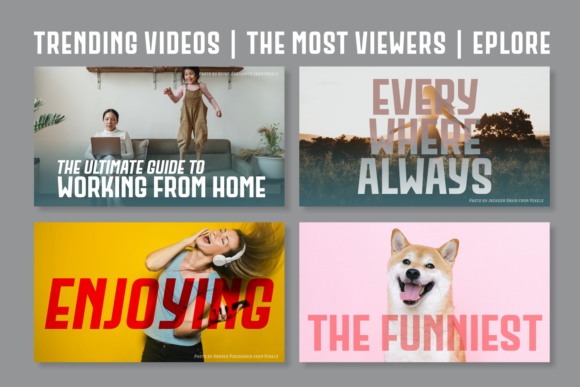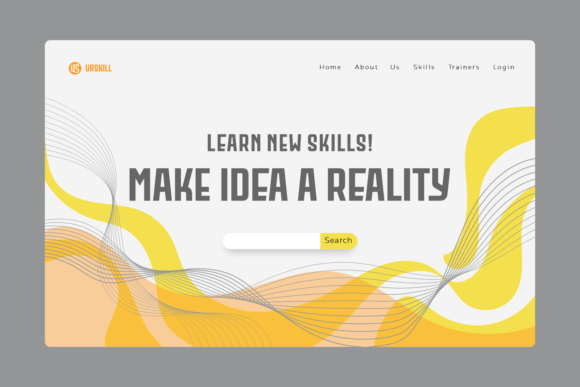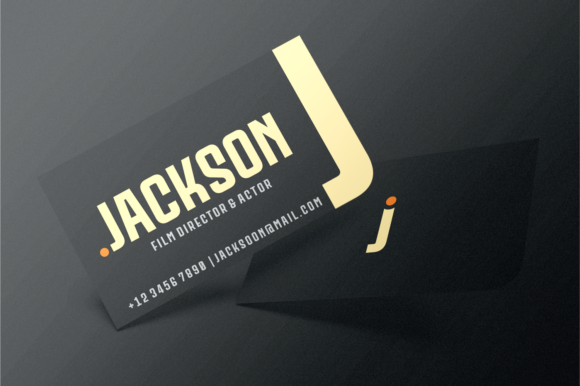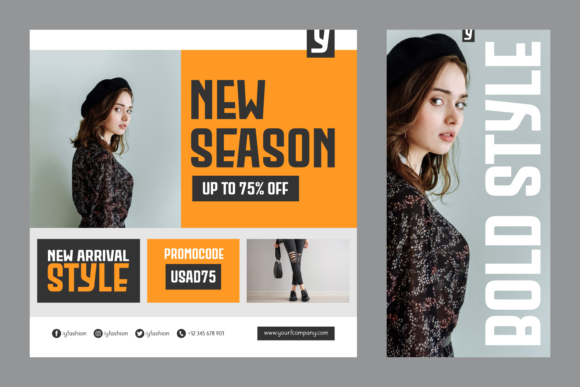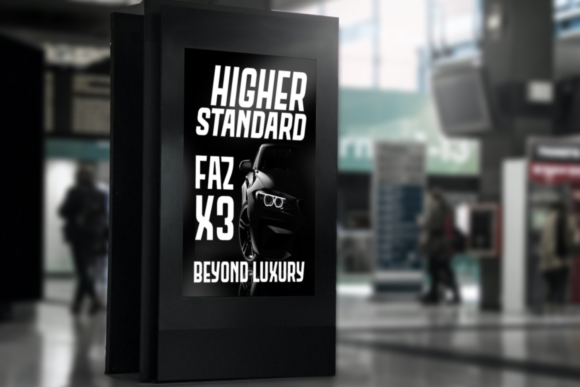
Unlock Endless Creativity with Creator Reward Font
In the realm of digital design, typography plays a pivotal role in conveying messages, evoking emotions, and shaping brand identities. Among the myriad of fonts available, the Creator Reward font stands out as a beacon of modernity and versatility. This sans serif font is meticulously crafted to infuse a contemporary vibe into any project, making it a favorite among designers and crafters alike.
The Essence of Creator Reward Font
Creator Reward is more than just a font; it’s a design statement. Its sans serif structure lends a clean, minimalist aesthetic that resonates with modern design sensibilities. The font’s masterful design ensures that it can elevate any creative project to new heights, providing a professional and polished look that captivates audiences.
Key Features of Creator Reward Font
• Modern Appeal: The sans serif design of Creator Reward Font gives it a sleek and modern look, perfect for projects that demand a contemporary edge.
• Versatility: Whether you’re working on a branding project, a website, a digital advertisement, or a craft project, Creator Reward Font adapts seamlessly, ensuring your message is conveyed with clarity and style.
• Legibility: One of the standout features of this font is its exceptional legibility, making it ideal for both digital and print media.
• Emotional Connection: The clean lines and modern aesthetic of Creator Reward Font can evoke a sense of innovation, forward-thinking, and reliability, helping you connect with your audience on a deeper level.
Applications of Creator Reward Font
The versatility of Creator Reward Font makes it suitable for a wide range of applications. Here are some of the most notable uses:
• Branding and Logos: Create a lasting impression with a font that exudes professionalism and modernity.
• Digital Marketing: From website headers to social media graphics, Creator Reward Font can enhance your digital presence.
• Print Media: Whether it’s brochures, posters, or business cards, this font ensures your print materials look contemporary and appealing.
• Crafting and DIY Projects: For crafters and DIY enthusiasts, Creator Reward Font can add a professional touch to handmade products, such as labels, cards, and signage.
Tips for Maximizing the Potential of Creator Reward Font
To truly leverage the capabilities of Creator Reward Font, consider the following tips:
• Pair it Wisely: Experiment with font pairings to find the perfect complement to Creator Reward Font. A serif font can create a nice contrast, adding depth to your design.
• Play with Sizes: Utilize different font sizes to create visual hierarchy, making your content more engaging and easier to navigate.
• Customize: Don’t be afraid to tweak the font’s weight, style, and color to match your project’s specific needs and aesthetic.
Creator Reward Font is a powerful tool in the arsenal of any designer or crafter looking to imbue their projects with a modern, sophisticated feel. Its clean design, versatility, and legibility make it an excellent choice for a wide array of applications. By incorporating Creator Reward Font into your design workflow, you’re not just selecting a font; you’re embracing a design philosophy that prioritizes clarity, innovation, and aesthetic appeal. Unlock the full potential of your creative projects with Creator Reward Font and discover a world of limitless design possibilities.